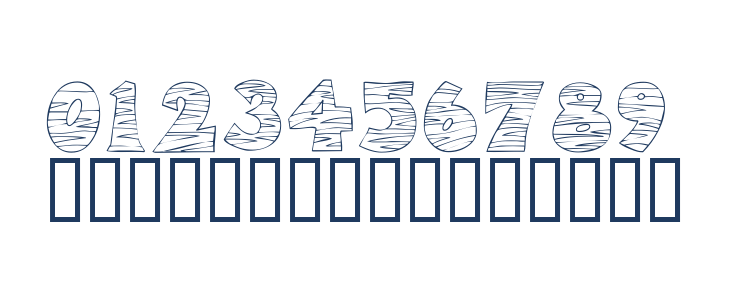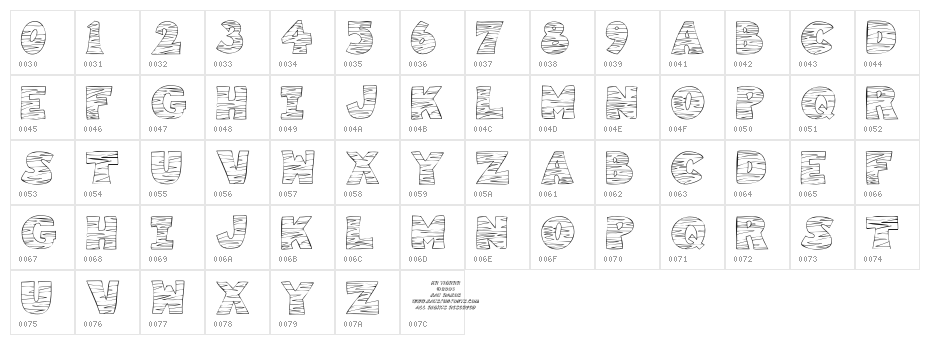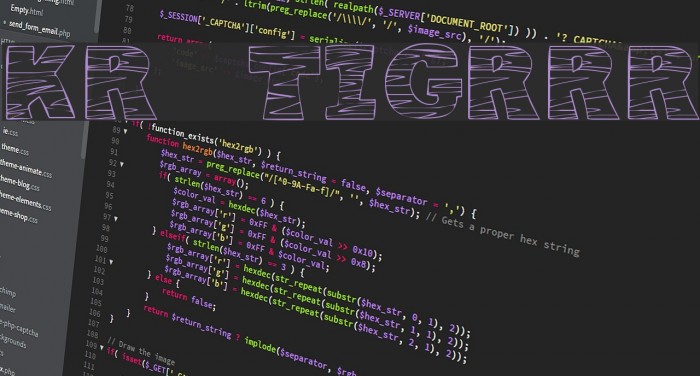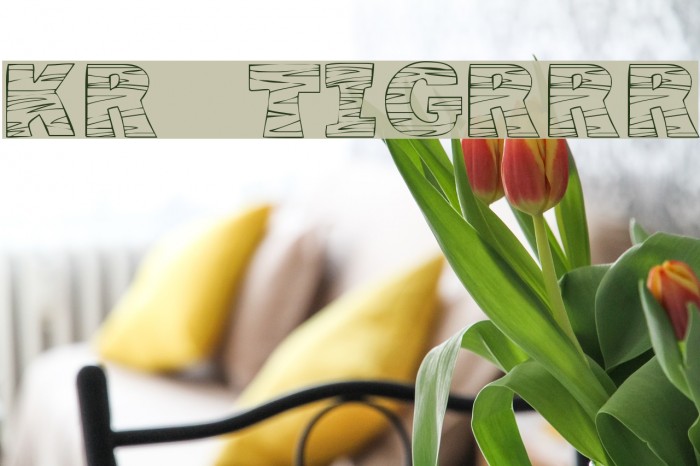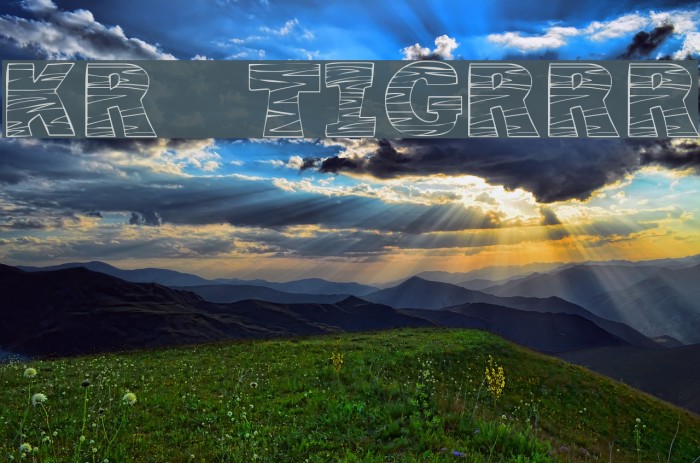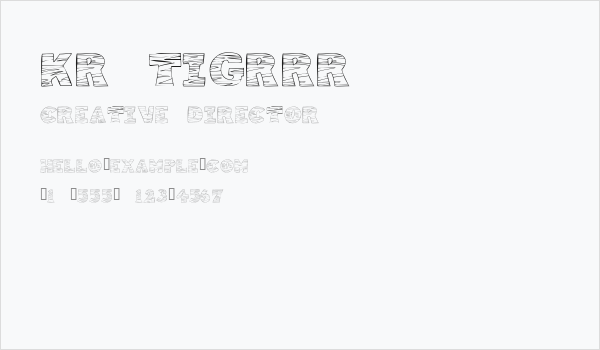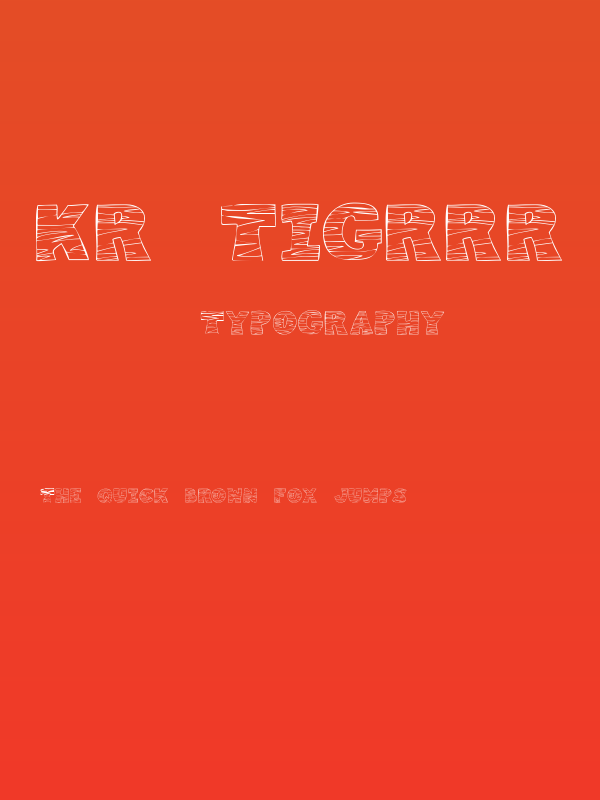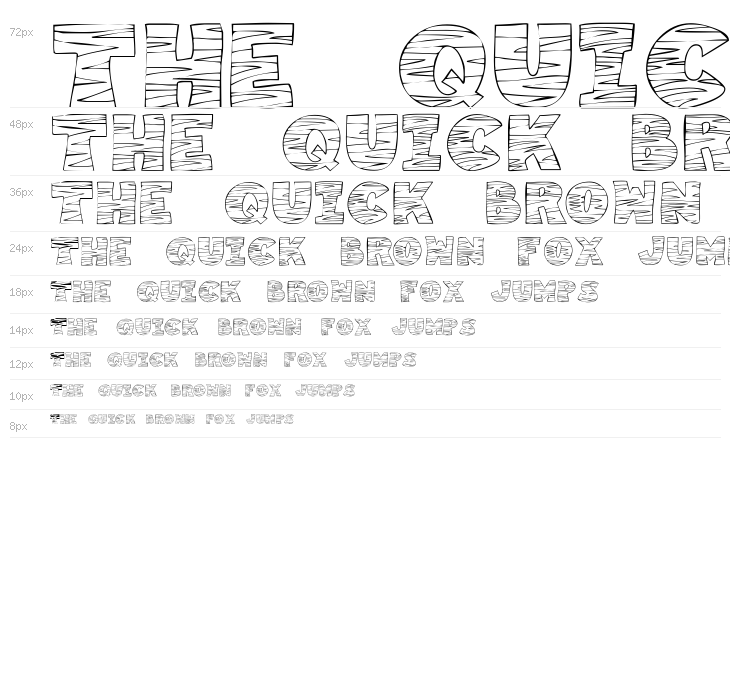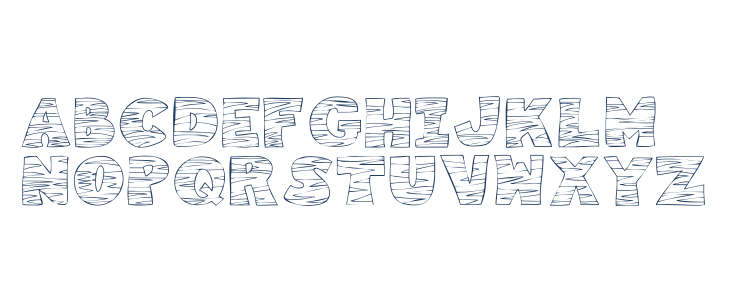
KR Tigrrr Font
KR Tigrrr Description
This font features a bold and playful design with a distinctive striped pattern running through each character, reminiscent of tiger stripes. The letters are uppercase and lowercase, with numbers and special characters included. The style is eye-catching and dynamic, making it ideal for projects that require a fun and adventurous look. The bold strokes and unique texture give it a strong presence, suitable for creative and informal applications.
| Overall Style | Playful, Adventurous, Fun |
| Proposed Projects | Ideal for children's book covers, playful branding, event posters, and themed party invitations. |